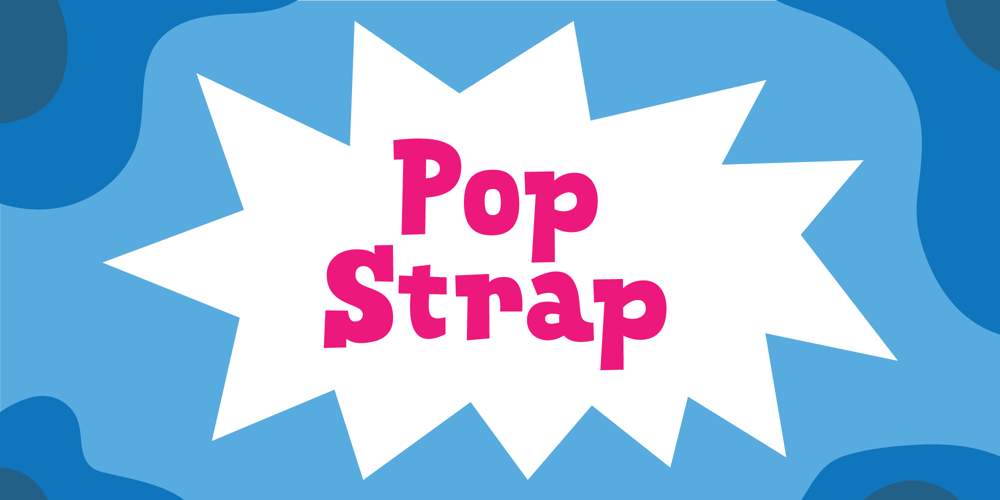
Pop Strap
Pop Strap font
Pop Strap Font Family was designed by Jakob Fischer and published by PizzaDude.dk. Pop Strap contains 2 styles and family package options. Pop Strap is my happy, kind of wacky and cartoonish serif font. Use it for your book covers, posters and packaging – even the eco ones … actually whatever you think may need a fresh touch.Originally handmade, and then digitally traced – but keeping the handmade feeling!